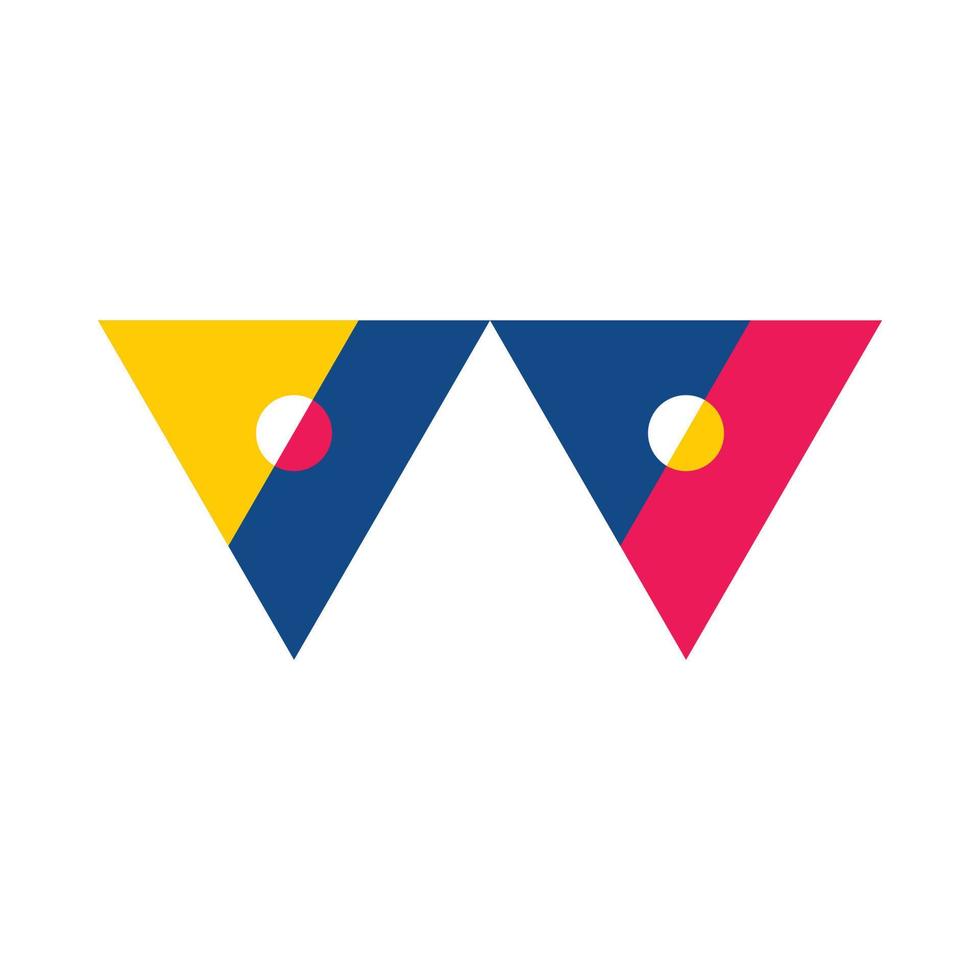
Modern Modern Abstract geometric W alphabet font design geometric w Uppercase alphabetical font flat design. W letter vector
Modern Modern Abstract geometric W alphabet font design geometric w Uppercase alphabetical font flat design. W letter Free Vector